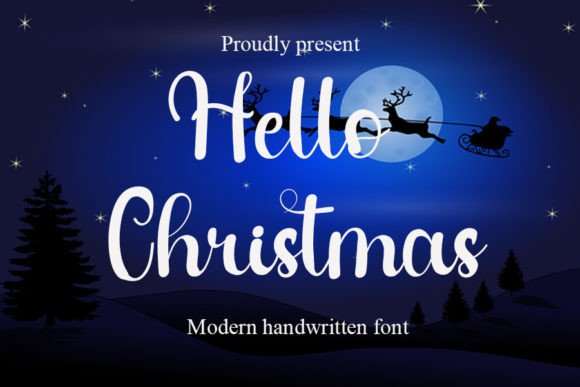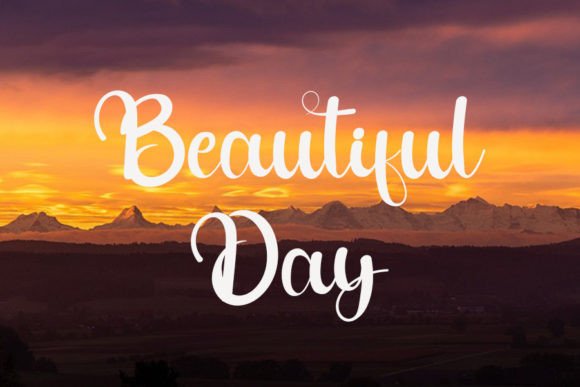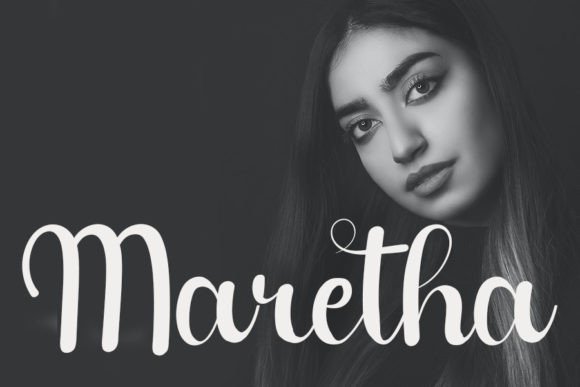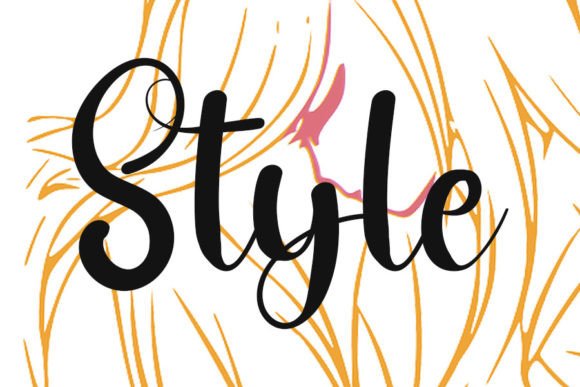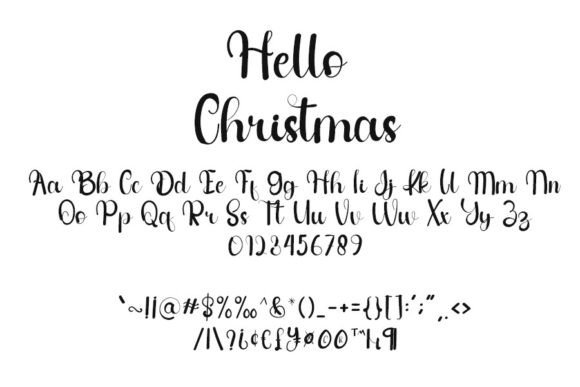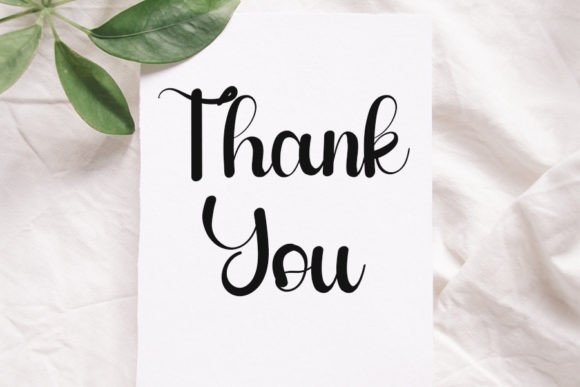
Hello Christmas Font
Hello Christmas Font Download – Elegant Festive Handwritten Script
The Hello Christmas Font download is a charming handwritten script that combines elegance with festive creativity. With its smooth strokes and timeless appearance, this typeface brings warmth and sophistication to your seasonal and year-round projects. Because of its versatility, it adapts easily to both professional branding and personal crafts.
Elegant and Timeless Handwritten Style
Hello Christmas offers graceful curves and well-balanced characters that create a refined handwritten look. As a result, it gives your designs a personal yet stylish personality. In addition, its timeless nature makes it suitable for a wide variety of creative applications.
From Christmas cards to wedding invitations, this font adds elegance and meaning to every word. It provides a festive and warm touch that makes your designs stand out. Therefore, it is an excellent option for holiday stationery and event projects.
Hello Christmas Font Download for Logos and Posters
The Hello Christmas Font download is also perfect for logos, posters, and branding. Its handwritten strokes create a professional yet approachable impression, making it ideal for businesses, creatives, and personal use.
Versatility Across Creative Projects
This typeface adapts to packaging, social media graphics, magazines, and DIY designs. In addition, it works well in both digital and print formats, ensuring consistency across all creative platforms.
Readability and Balanced Design
Unlike some decorative holiday fonts, Hello Christmas maintains readability while still offering a festive look. As a result, it can be used effectively in headlines, product labels, and detailed text elements.
Why Add This Typeface to Your Collection?
The Hello Christmas Font download is versatile, elegant, and simple to use. In other words, it fits invitations, posters, logos, and branding projects. Finally, it is a handwritten script that adds timeless elegance, festive charm, and creativity to every design.